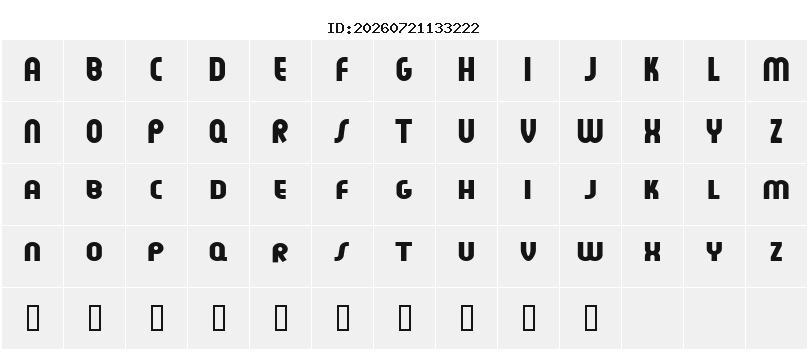
• Font Name: Feuerfeste
Feuerfeste.ttf is a modern, elegant sans-serif font designed for ultimate readability and visual harmony. Perfect for branding, headlines, web design, and print materials.